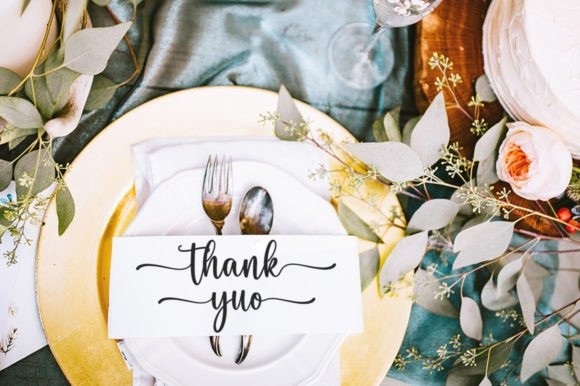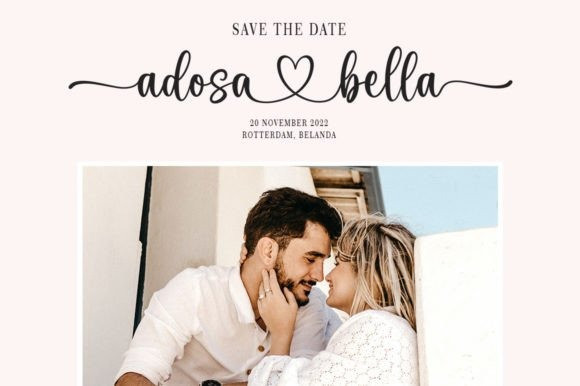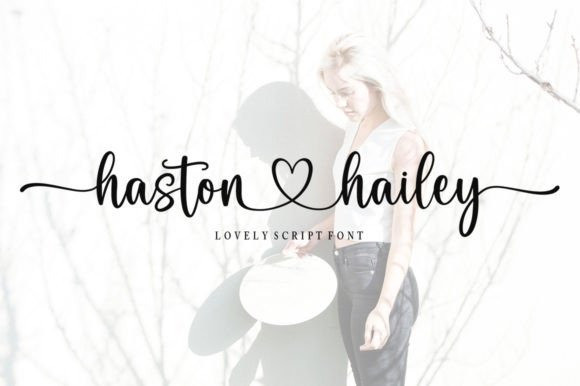
Haston Hailey Font
Haston Hailey Script Font is a delicate, elegant, and flowing handwritten font. It has beautiful and well-balanced characters, and, as a result, it matches a wide pool of designs. It looks stunning on wedding invitations, thank you cards, quotes, greeting cards, logos, business cards, and every other design which needs a handwritten touch.